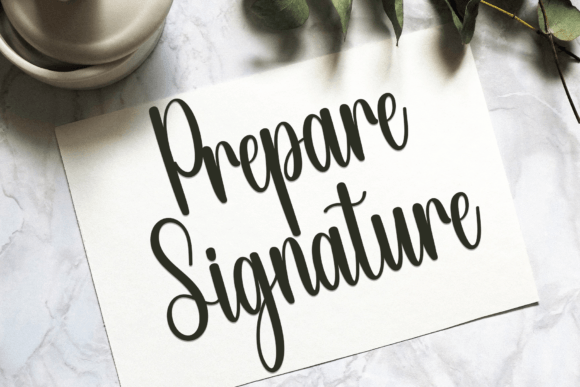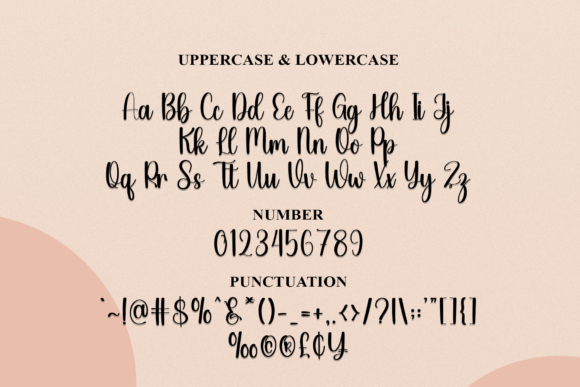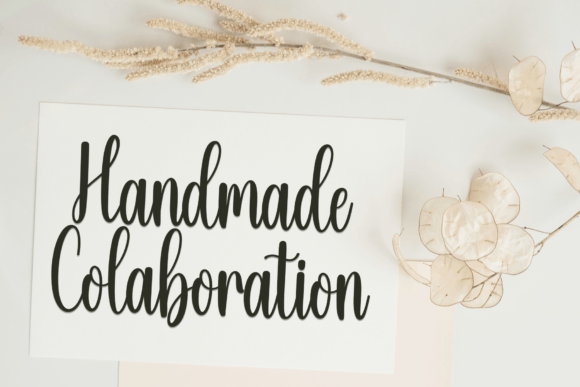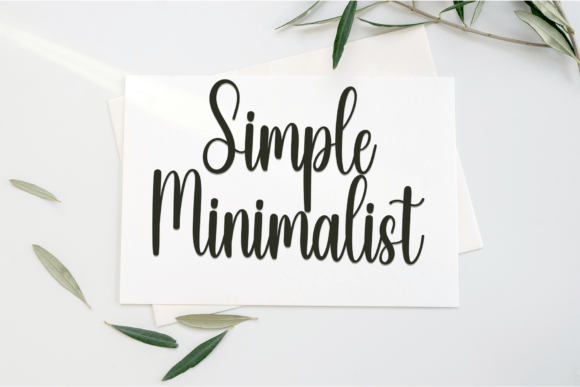
Introduction to Mockup Font
Have you ever been working on a creative project, pouring your heart and soul into it, and then hit a roadblock when it comes to finding the perfect font to bring it to life? You’re not alone. As a designer, you know how crucial the right font can be in elevating your work and making it truly special. That’s where the Mockup Font comes in – a stunning, handwritten font that’s sure to add a touch of sophistication and elegance to your designs.
With its timeless classic calligraphy-inspired design, the Mockup Font is the perfect addition to any creative project. Whether you’re working on a branding project, a digital art piece, or even just a simple social media graphic, this high-quality font is sure to impress. And the best part? It’s available for free download, making it a valuable resource for designers of all levels.
Key Features of Mockup Font
- High-quality vector design with transparent background, perfect for creative projects.
- Unique, modern design that can be easily customized to fit various branding and design styles.
- Perfect for creating mockups, presentations, and other design materials with a professional touch.
Honest Review: Mockup Font
As a designer, I’m always on the lookout for high-quality design resources to help me create stunning visuals for my projects. The Mockup Font is one such resource that caught my attention, and I’m excited to share my honest review with you.
What works well: ✨ The Mockup Font offers a free download, making it an accessible design resource for creatives of all levels. The font is available in high quality, ensuring that it looks great on any background, including transparent backgrounds. I appreciate how easy it is to customize and use in various creative projects.
What doesn’t work so well: ⚠️ While the Mockup Font is a great addition to any designer’s toolkit, I do wish it came in more font styles and weights. Additionally, the font might not be suitable for all design contexts, especially those requiring a more minimalist aesthetic.
- Best suited for: creative projects requiring bold typography
Overall, I’m impressed with the Mockup Font and would recommend it to designers looking for a high-quality, versatile font to add to their design arsenal. With its ease of use and customization options, it’s a great addition to any creative project.
Mockup Font: A Practical Application Guide
The Mockup Font is a versatile design resource ideal for creative projects. It’s available for free download and features a high-quality design with a transparent background, making it easy to integrate into various design platforms.
Tips for Getting the Most Out of Mockup Font
Here are some tips to help you get the most out of the Mockup Font:
- Experiment with different font sizes and colors to achieve the desired effect.
- Combine the Mockup Font with other design elements to create a visually appealing design.
- Use the transparent background to create a sense of depth and dimension in your design.
The Mockup Font is ideal for various creative projects, including:
- Web design projects